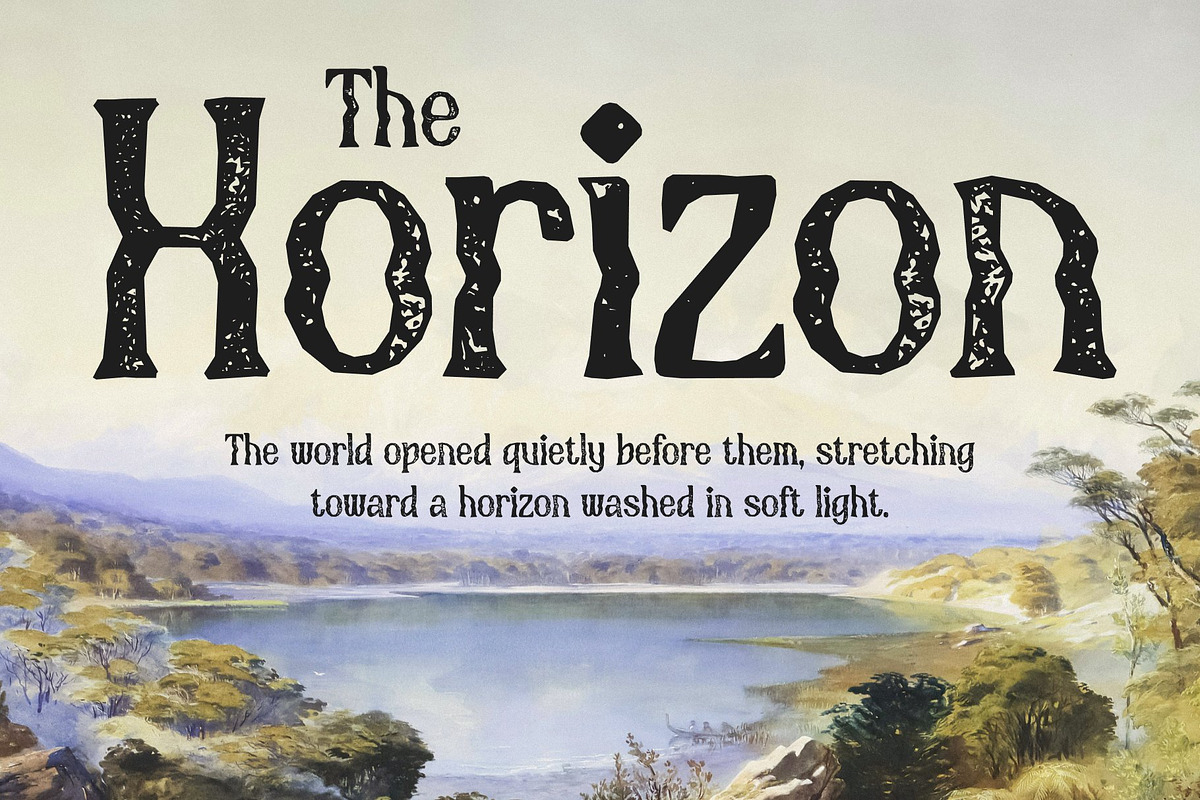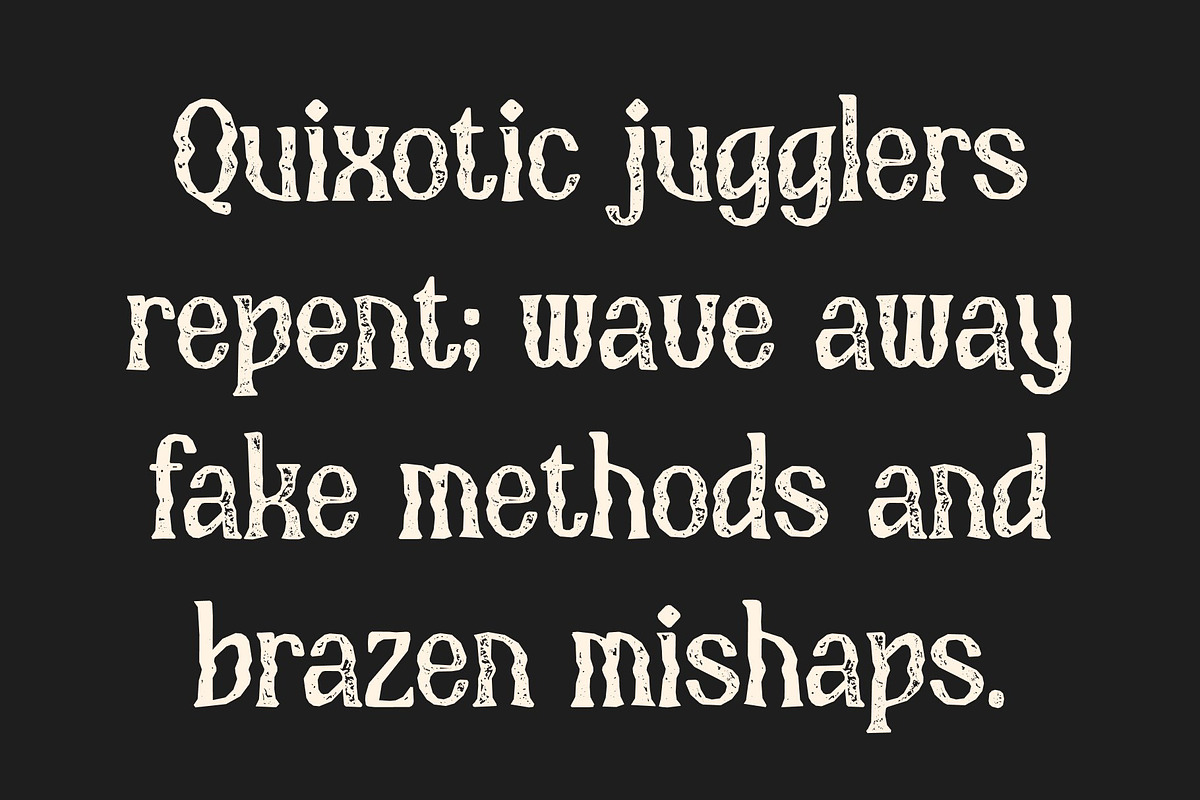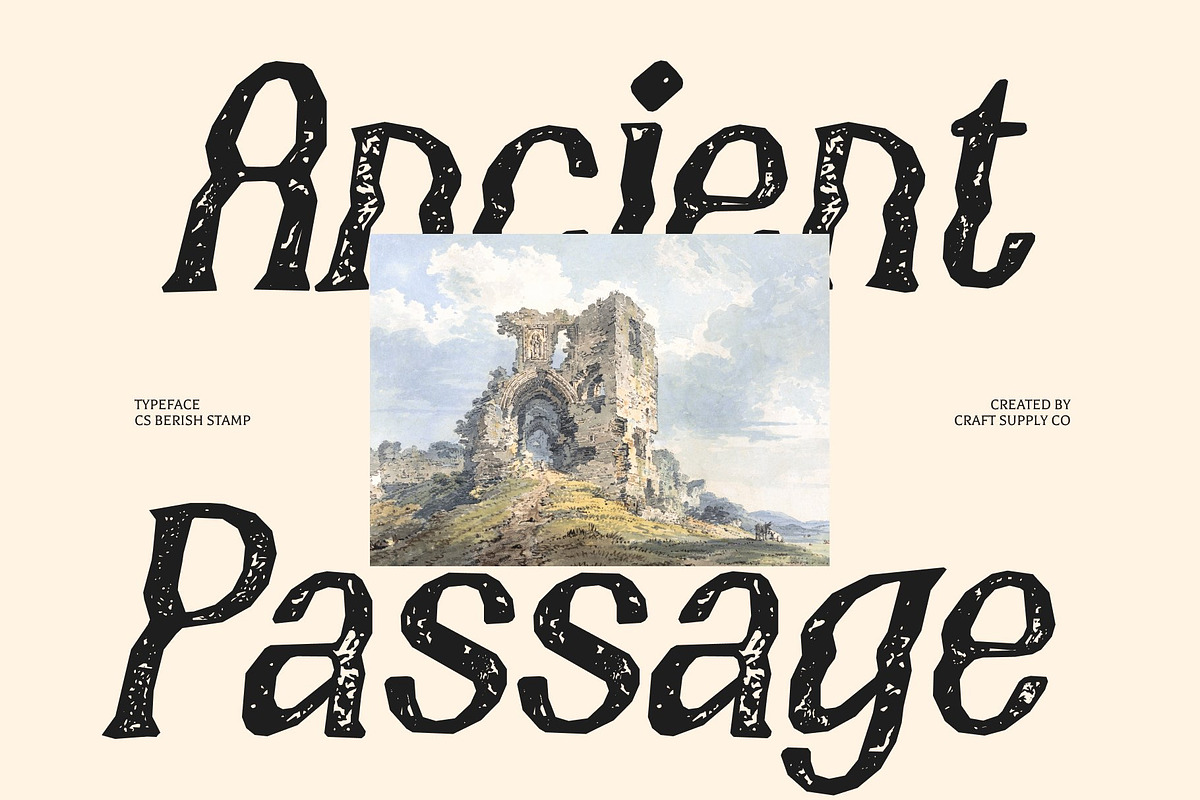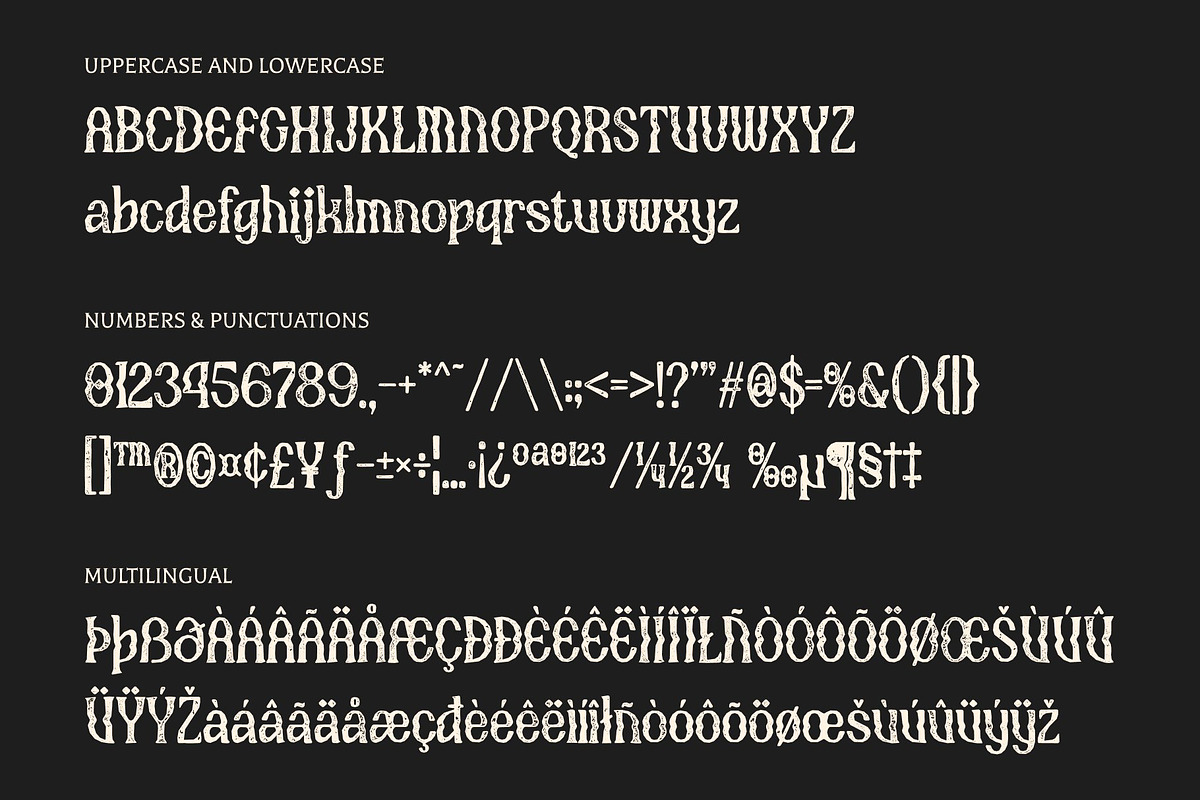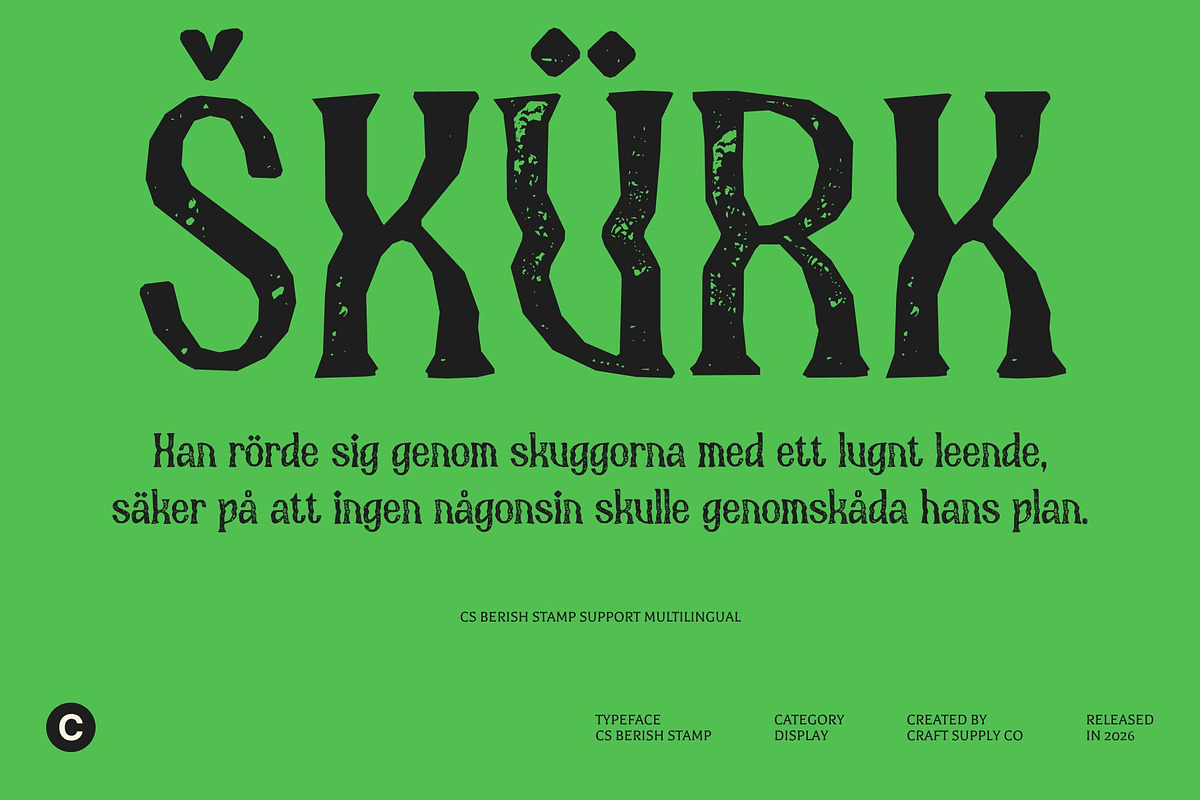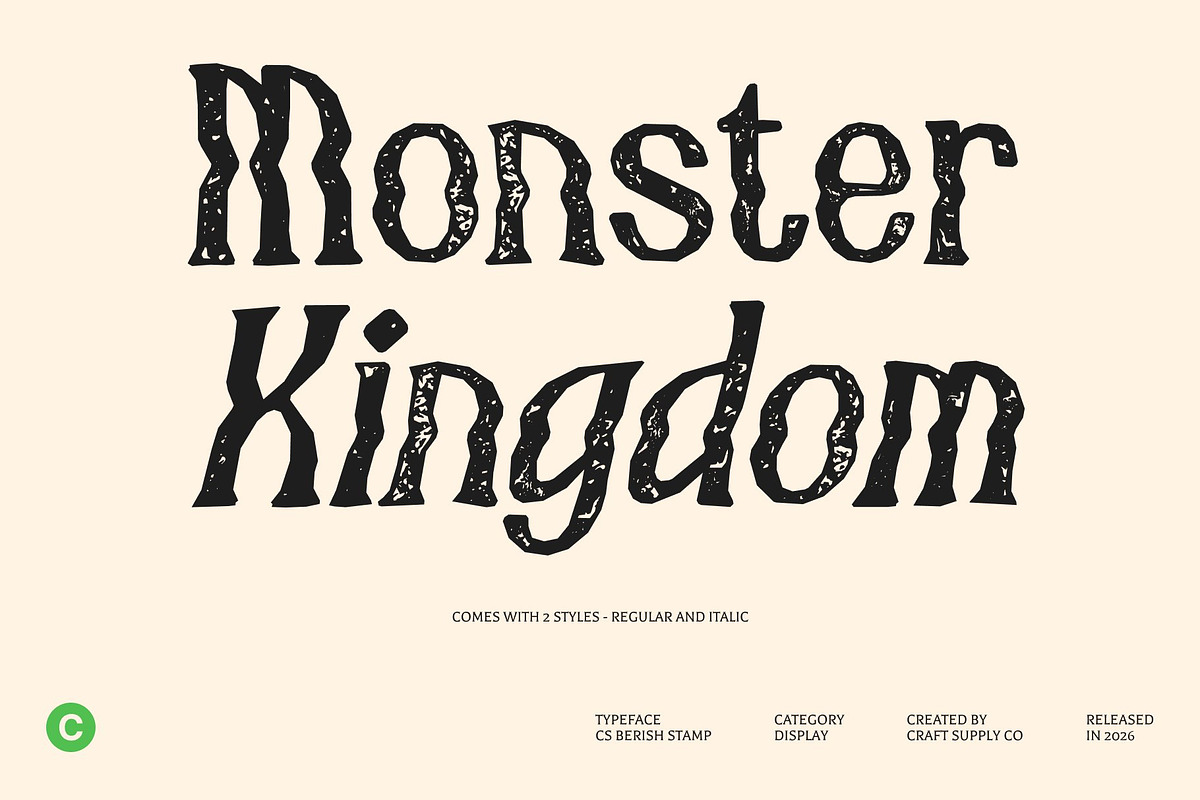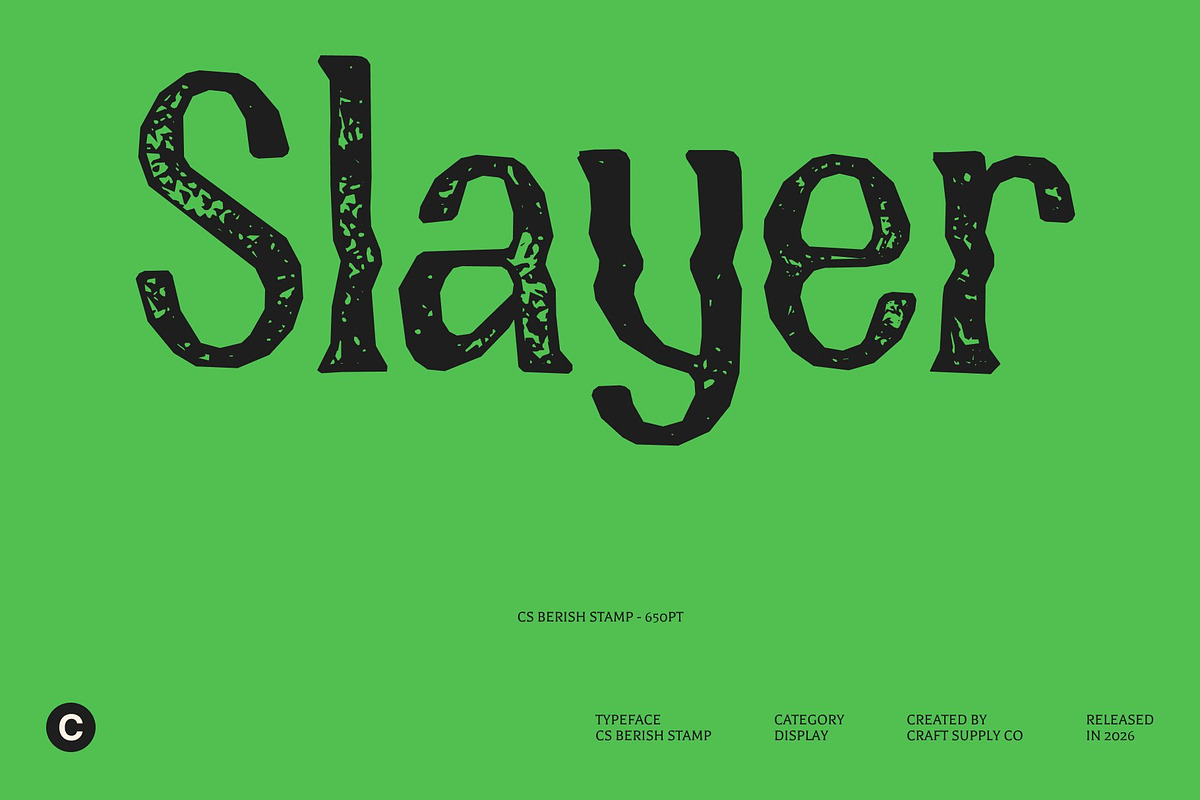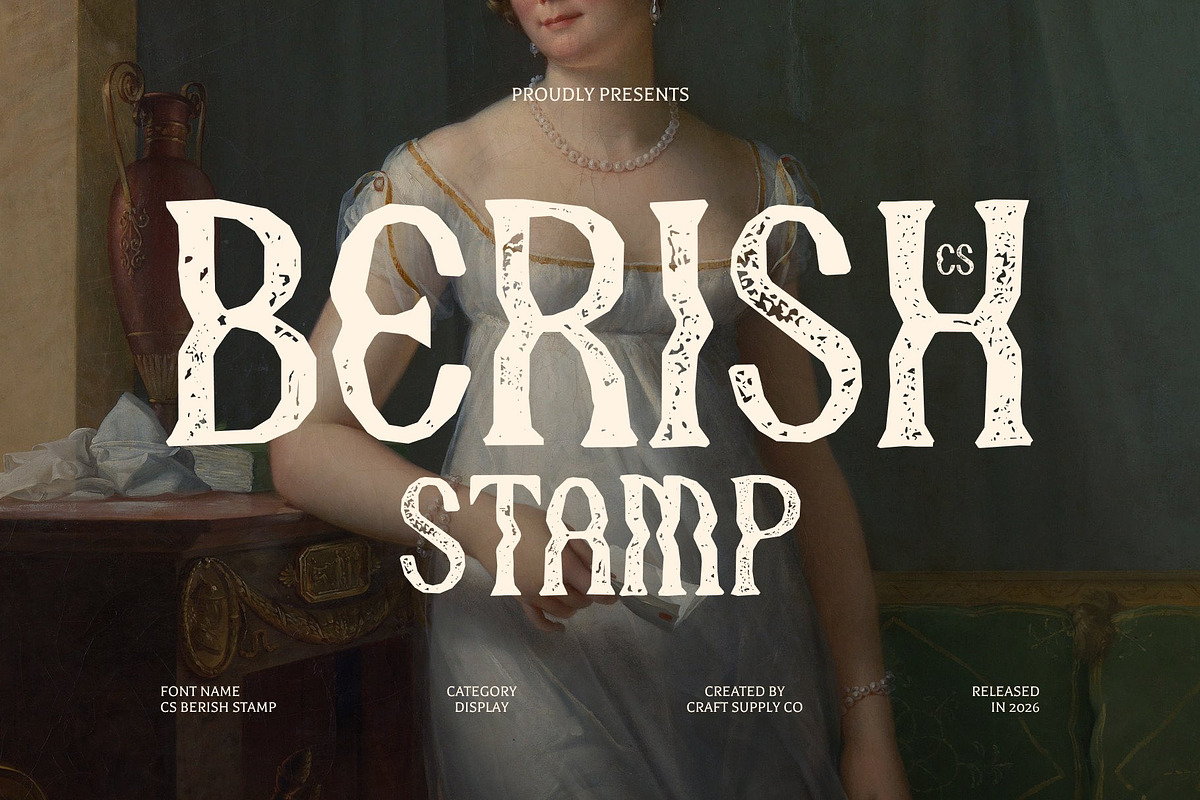
CS Berish Stamp
CS Berish Stamp – Psychedelic Display Serif with Vintage Texture
Psychedelic Energy with Timeless Serif Roots This transforms the original psychedelic display serif into a visually rich, textured typeface with a handcrafted stamp effect. Its swirling, undulating letterforms now carry subtle irregularities, distressed edges, and ink-like textures that evoke the charm of retro print techniques, giving the font a nostalgic, tactile character.
Dynamic Letterforms with Artistic Texture The bold curves and psychedelic flourishes are enhanced by a lightly weathered stamp effect, adding depth and personality to each glyph. Slightly roughened edges and uneven inking simulate the imperfections of vintage print, bridging the gap between modern psychedelia and traditional craftsmanship.
Perfect for Retro, Creative, and Statement Designs This is ideal for posters, album covers, packaging, and branding that demand a striking, avant-garde look with historical or handmade flair. Its mix of classic serif sophistication, psychedelic shapes, and textured stamp aesthetic makes it perfect for projects that want to feel artistic, bold, and memorably expressive.
A Blend of Vintage Charm and Modern Psychedelia With its handcrafted stamp texture, carries both a contemporary energy and a nostalgic, old-school print quality. It’s a font that celebrates individuality, creativity, and visual storytelling, making every design feel vibrant, artistic, and full of character.
CS Berish Stamp Regular
CS Berish Stamp Italic